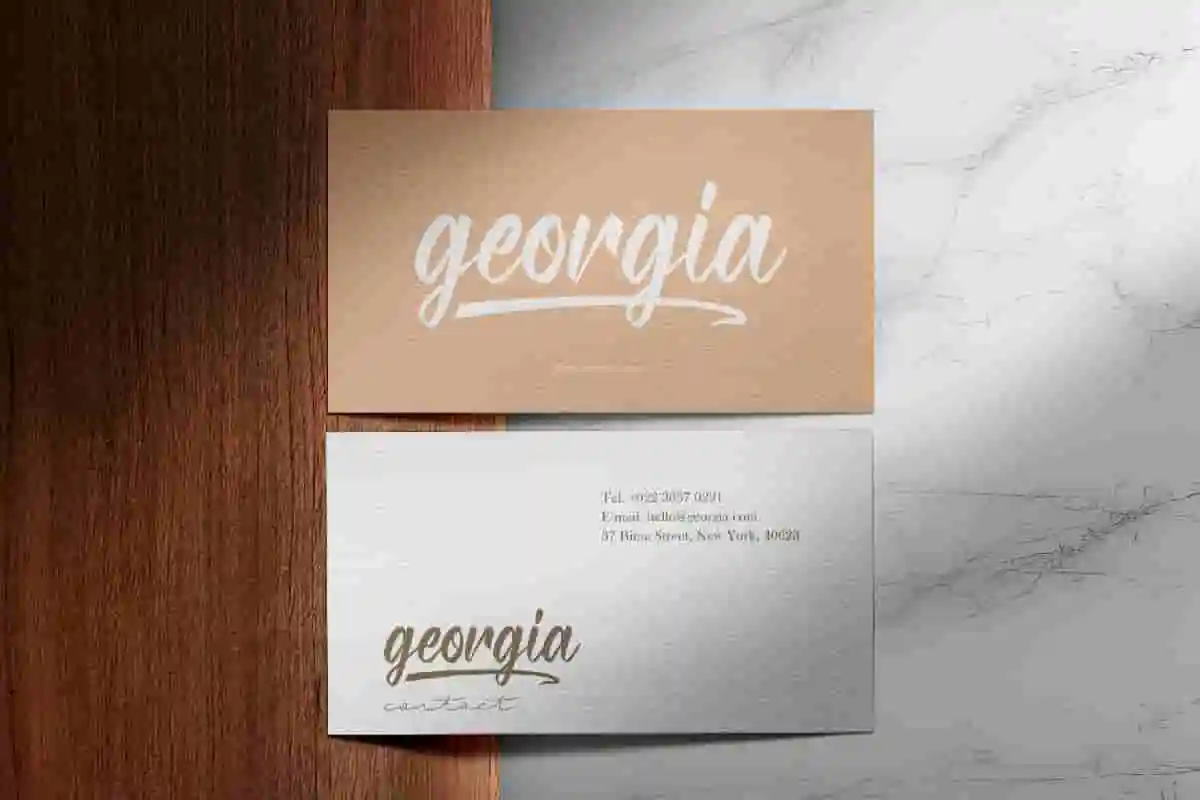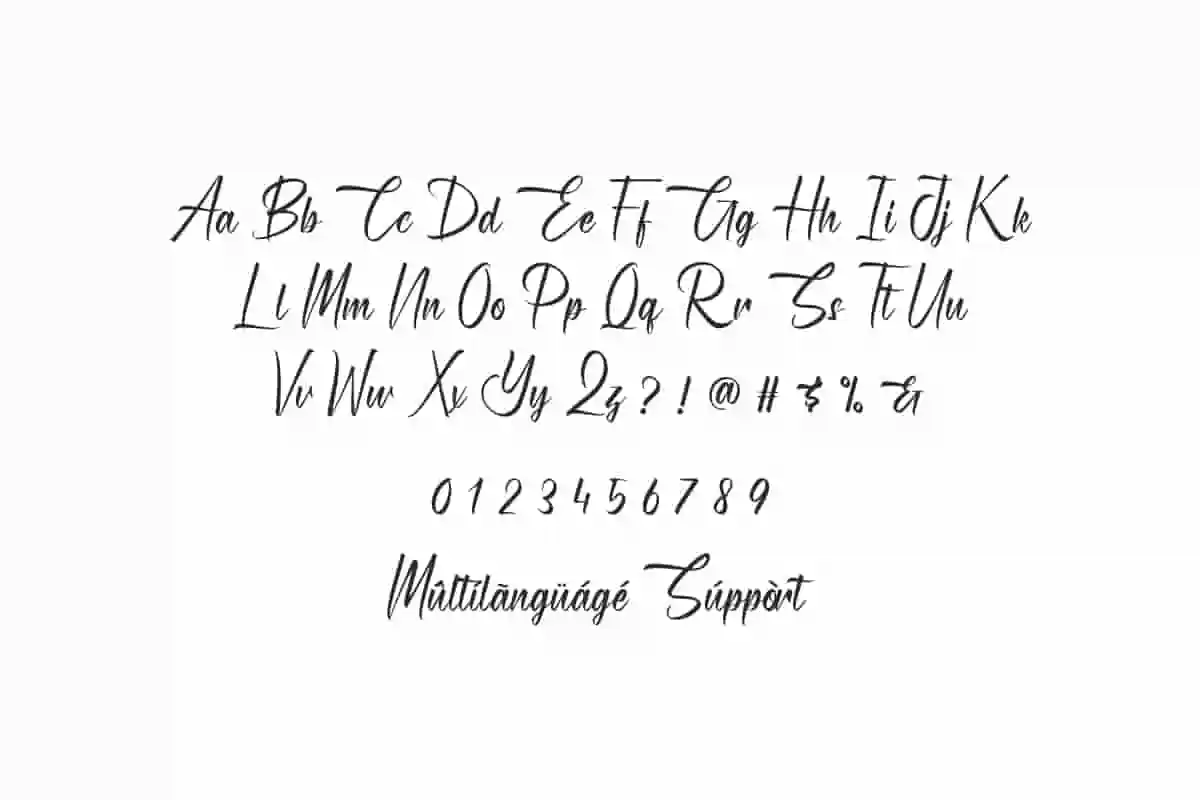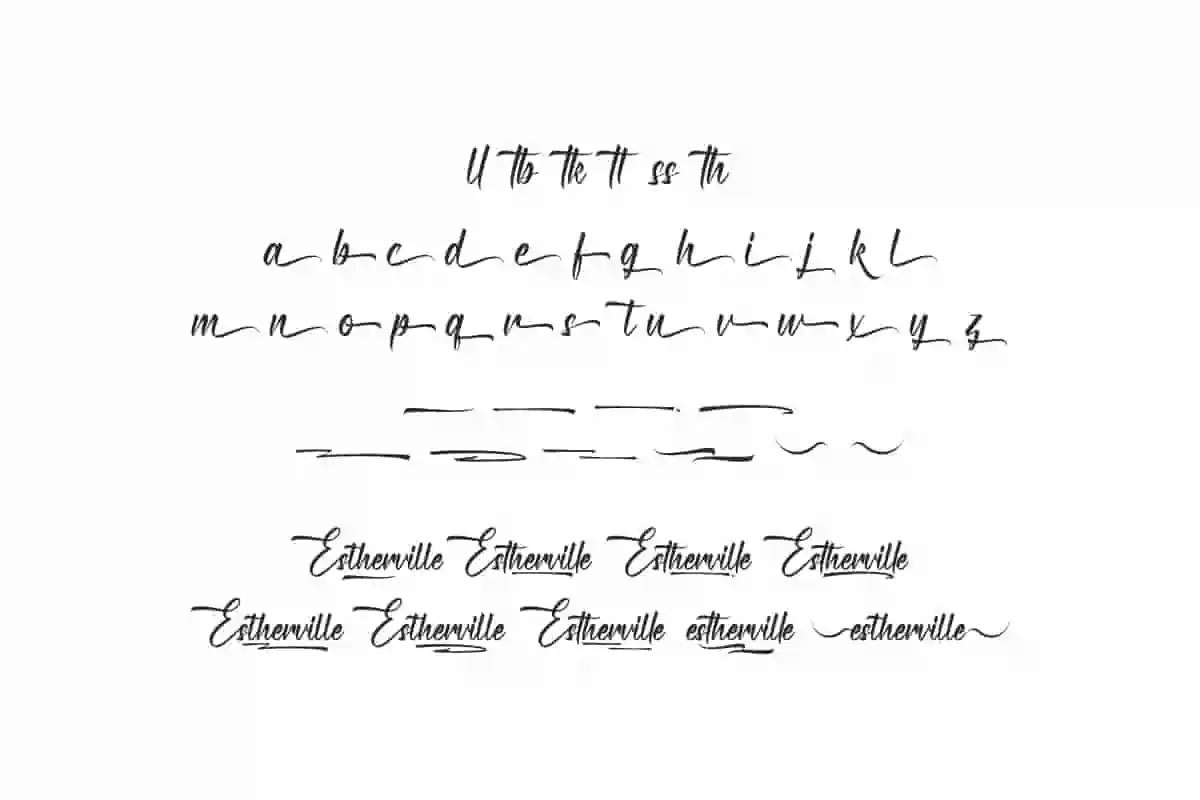
Estherville Font is a stunning original calligraphy font by NihStudio. Beautifully made for special projects :Wedding, florist, festival, promotion etc
Estherville Font is an exclusive eye catching calligraphy script font. Made in Indonesia 2020 by Our Font Designer : Widi and Sarah. On the package you will get :
Estherville Calligraphy font will be great for many projects (some require extended license) including : branding, logo, stationery, business card, signage, flyer, brochure etc. The theme style of the font is elegant, luxury, old school, sport, vintage, stylish, sophisticated and classic brush style. The font will be match for this typeface: wedding, events, real estate, promotion, sport team, florist, gardening, makeup artist, travel, hotel, musician etc